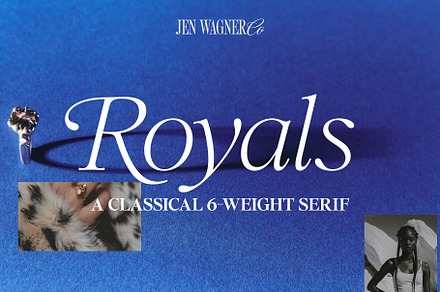
Royals | Romantic 12 Font Serif
A twelve-font romantic serif family with matching italics, covering a full weight range in a decorative classical register.
Romantic serifs depend on their italics, since the style originated in a period when italic was a distinct design rather than a slant.
• True drawn italics throughout